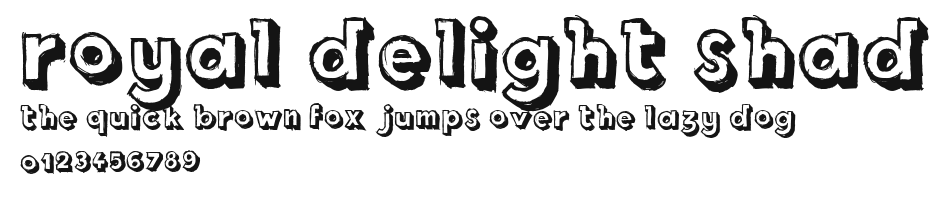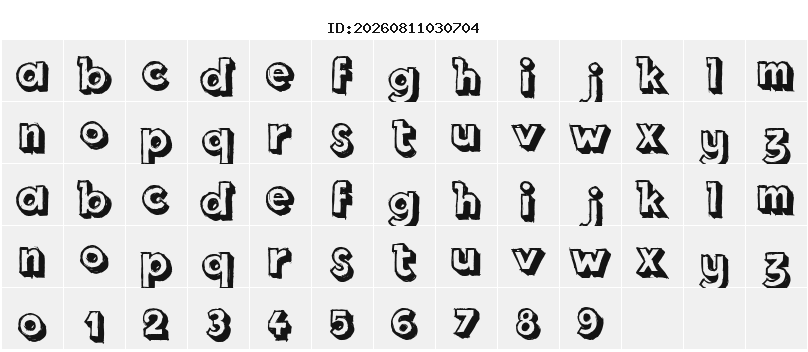
Royal Delight Shad Preview
• Font Name: Royal Delight Shad
• Full Font Name: Royal Delight Shad
• Version: Version 1.00 August 17, 2013, initial release
• PostScript Name: RoyalDelightShad
• Character Count: 87
• Description: This font was created using Scanahand from High-Logic.com
About Royal Delight Shad.ttf
Royal Delight Shad.ttf is a modern, elegant sans-serif font designed for ultimate readability and visual harmony. Perfect for branding, headlines, web design, and print materials.